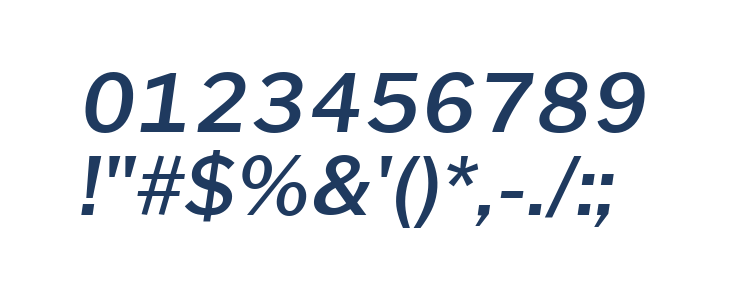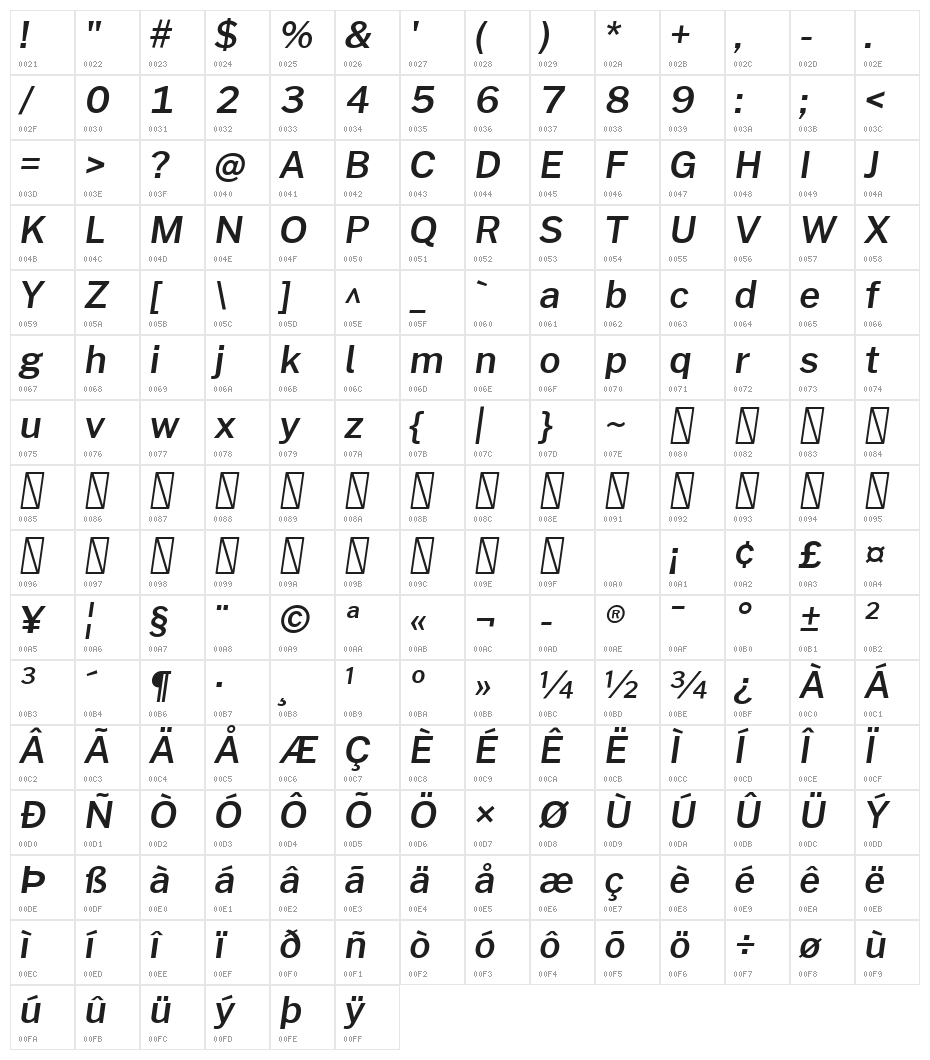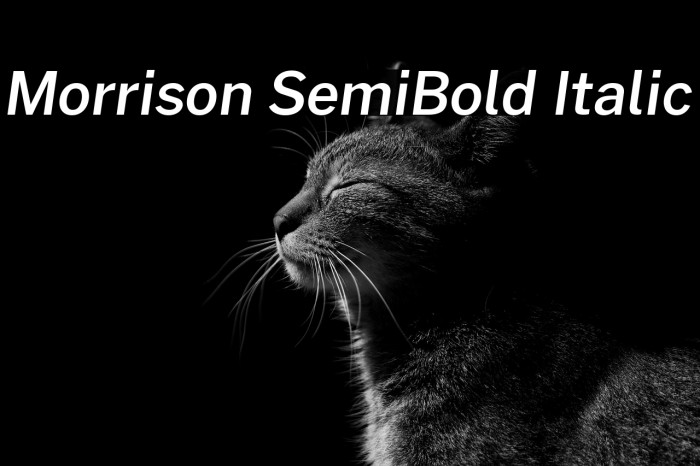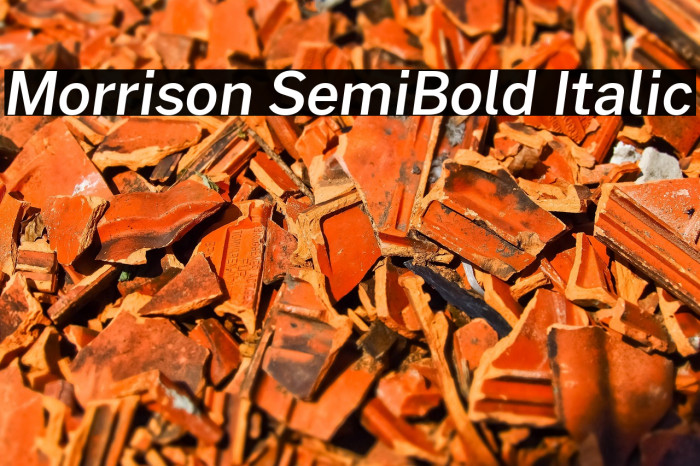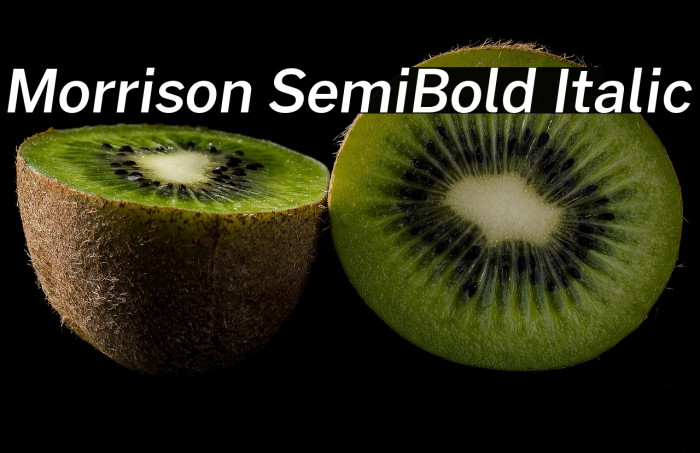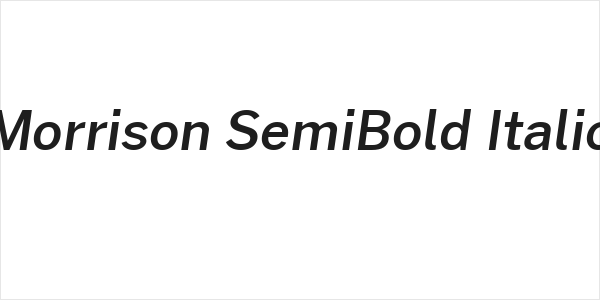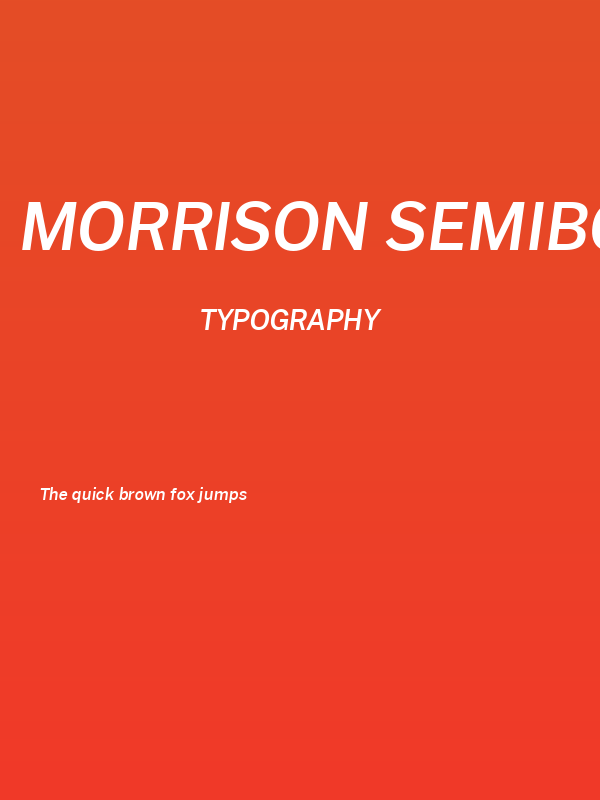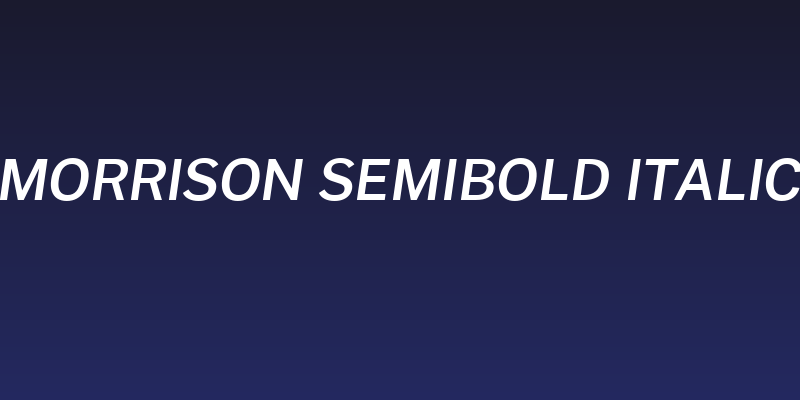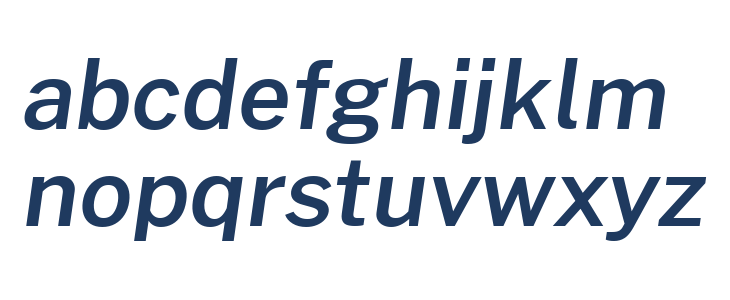
Morrison SemiBold Italic Font
Morrison SemiBold Italic Description
This typeface features a sleek and modern design with a semi-bold weight that provides a strong presence on the page. The italic style adds a dynamic and elegant touch, making it suitable for both professional and creative applications. The characters are well-balanced with a slight slant, enhancing readability while maintaining a stylish appearance. The font includes a full set of uppercase and lowercase letters, numerals, and a variety of special characters, ensuring versatility for different design needs. Its clean lines and contemporary feel make it ideal for branding, advertising, and editorial design.
| Proposed Projects | Ideal for branding, advertising, editorial design, and creative projects requiring a modern touch. |